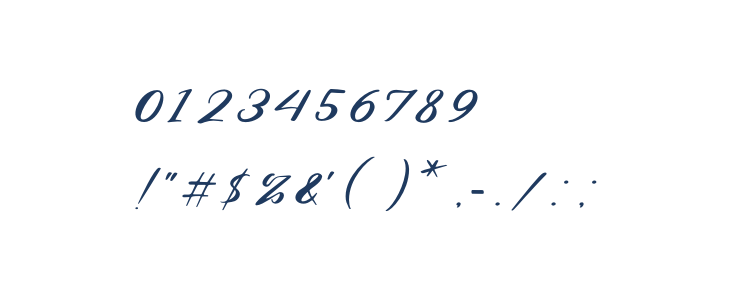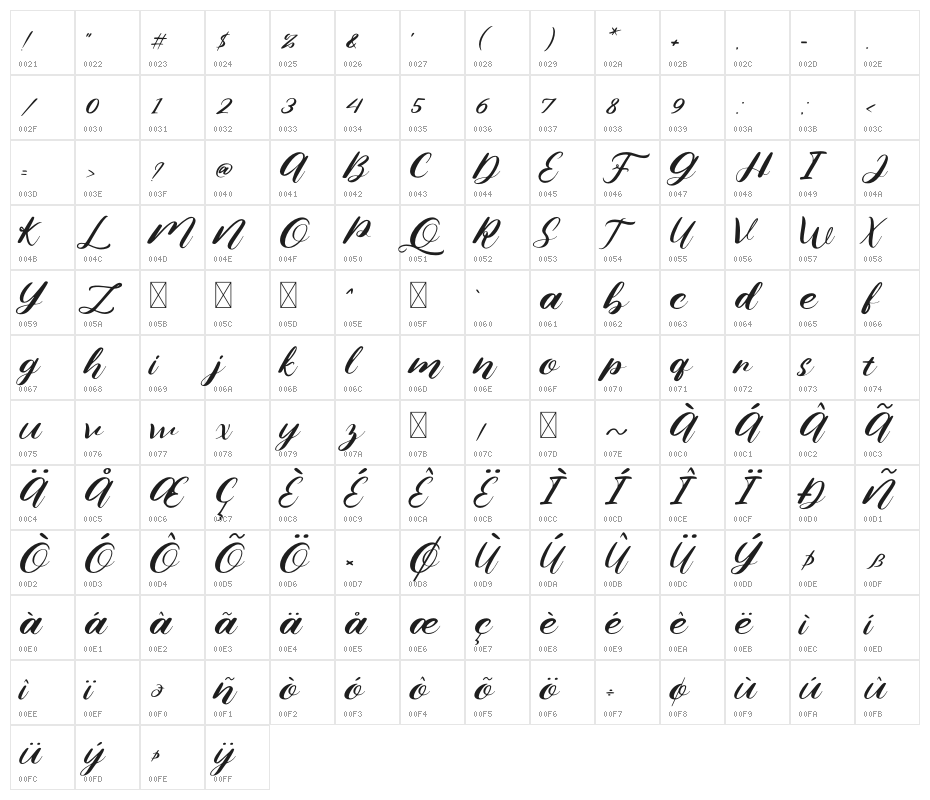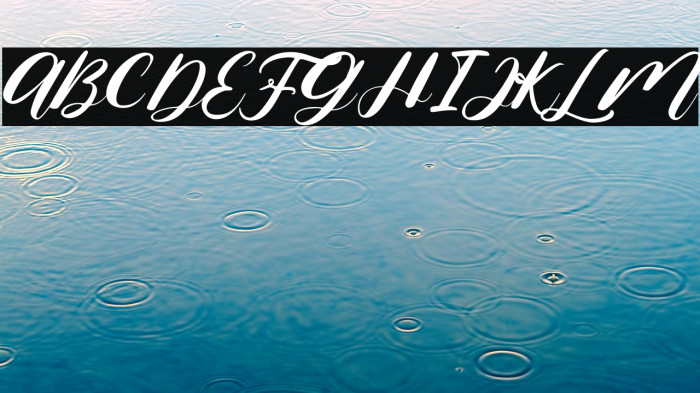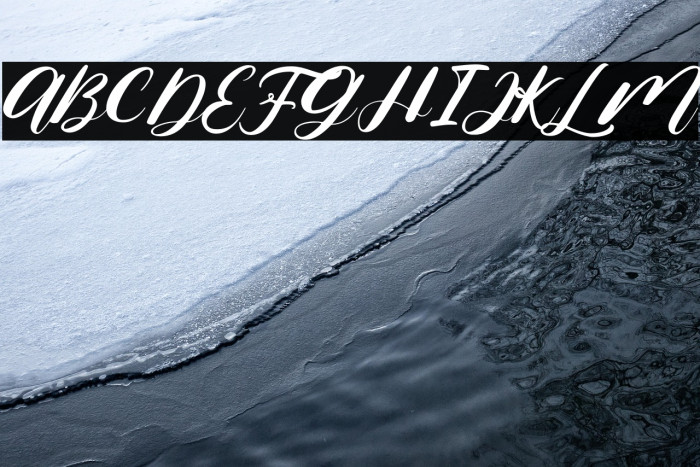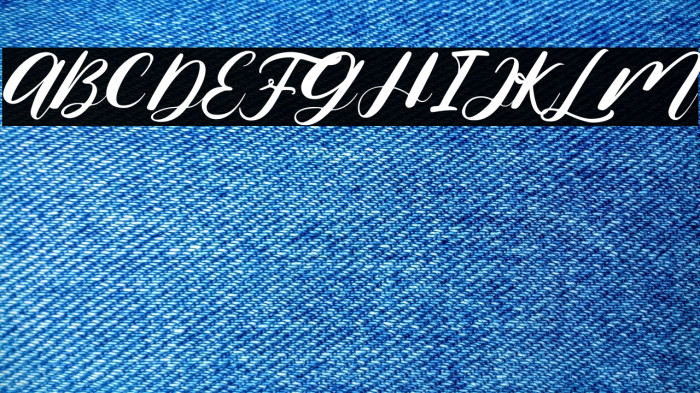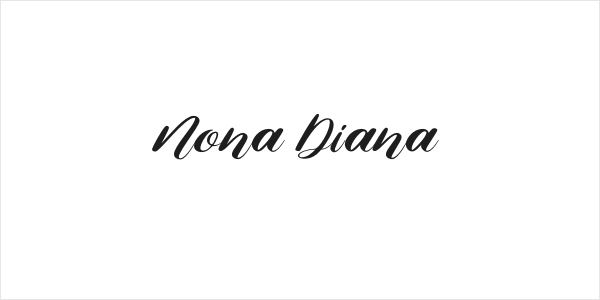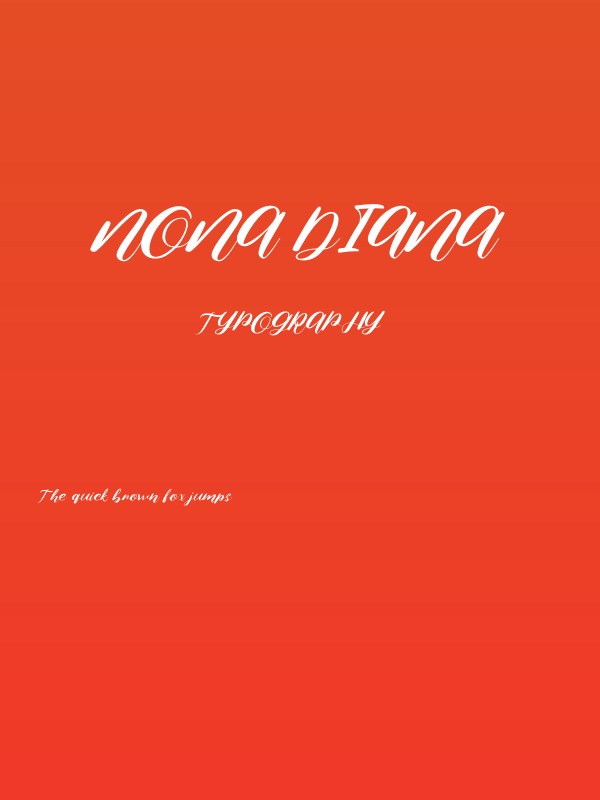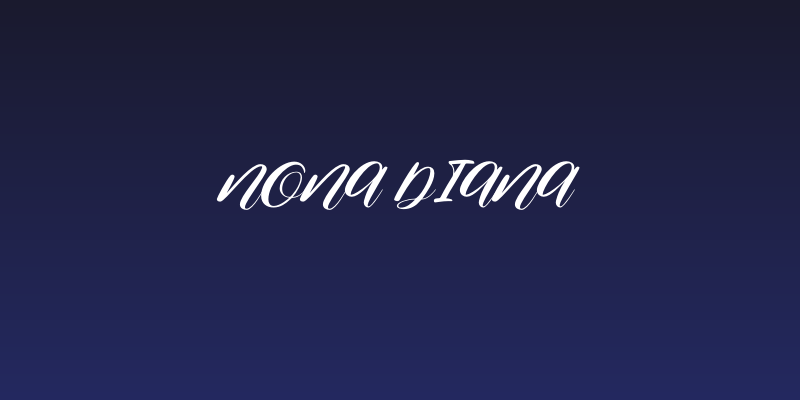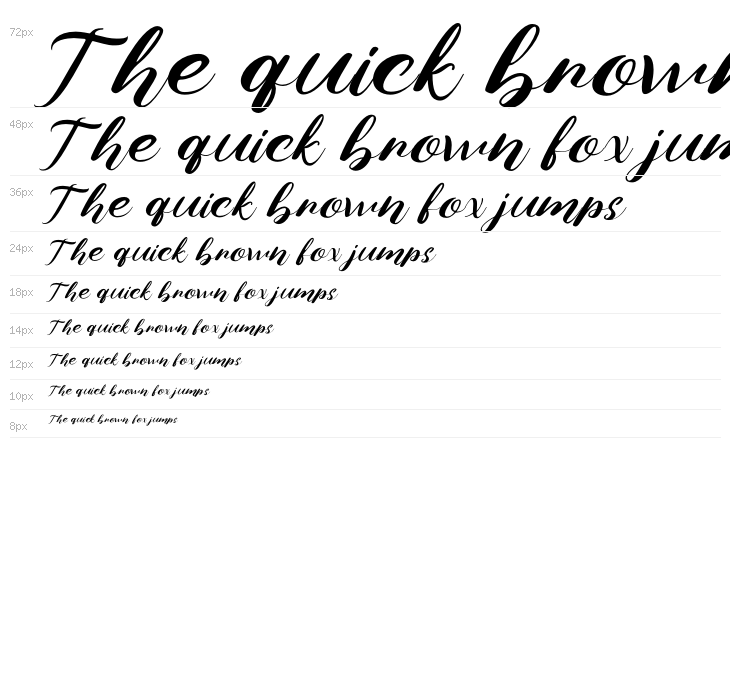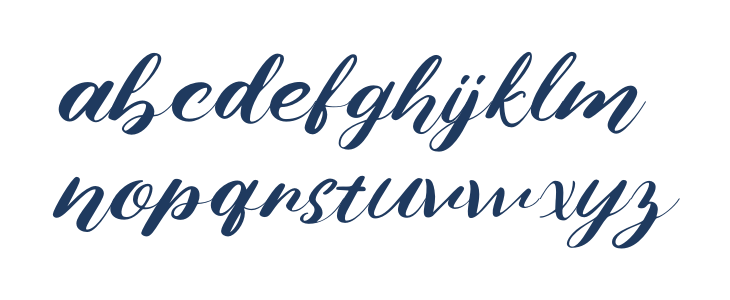
Nona Diana Font
Nona Diana Description
This elegant script font features flowing, cursive letterforms that exude a sense of sophistication and grace. The uppercase letters are ornate with sweeping curves and flourishes, while the lowercase letters maintain a consistent, fluid style that complements the overall design. The numerals are stylish and maintain the cursive theme, adding a touch of elegance to any numerical display. Special characters are thoughtfully designed to match the aesthetic, making this font versatile for various uses. The font's high contrast in stroke thickness enhances its readability while maintaining its decorative appeal.